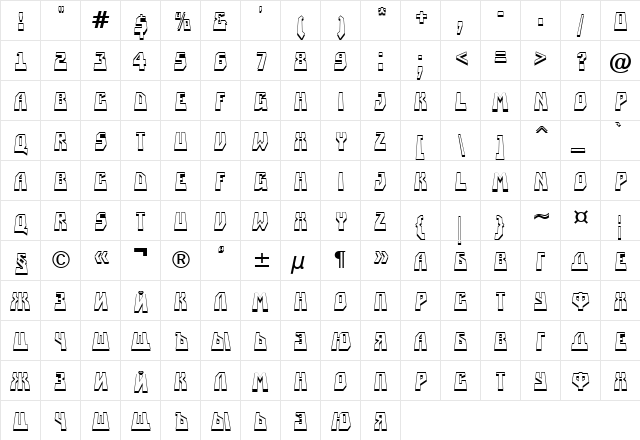
a_SimplerPrspSh Regular
Design Context for a_SimplerPrspSh Typeface
a_SimplerPrspSh is a composed and adaptable typeface that performs quietly and consistently across a wide range of design contexts.